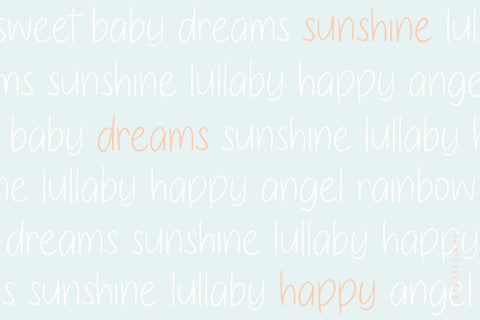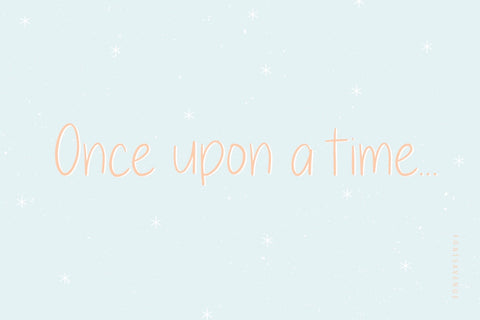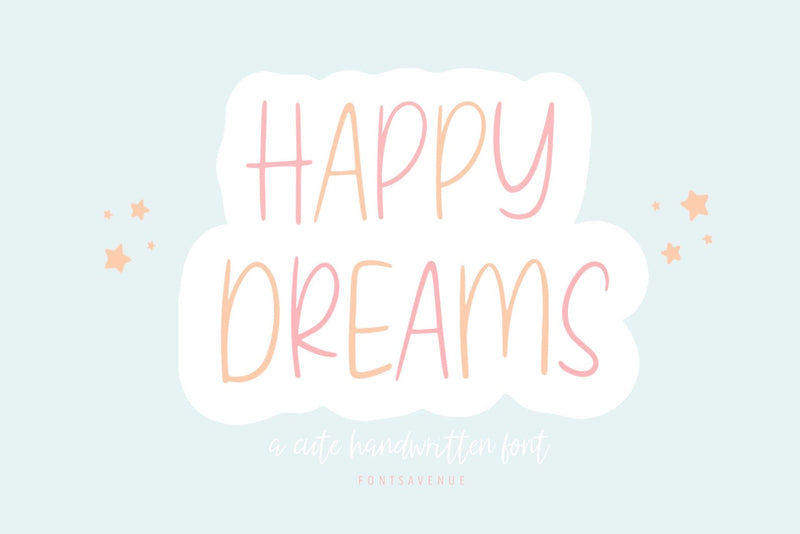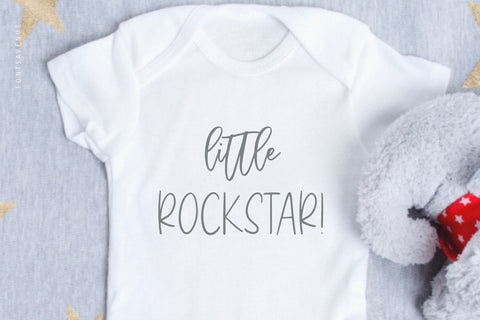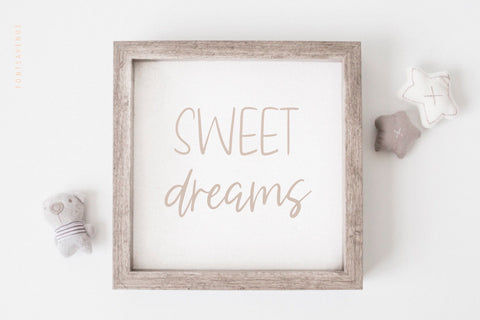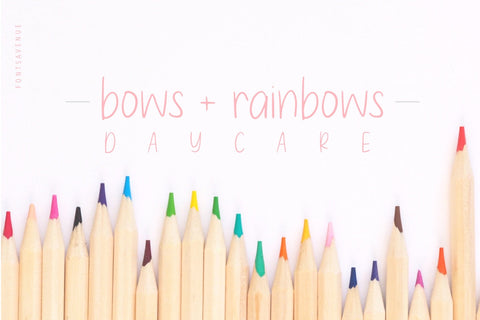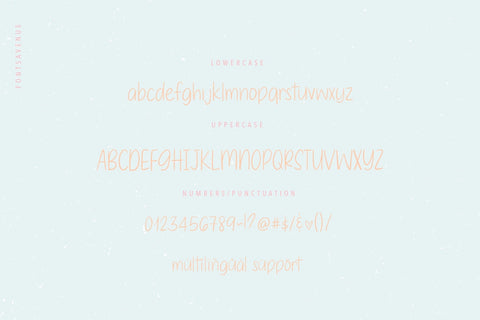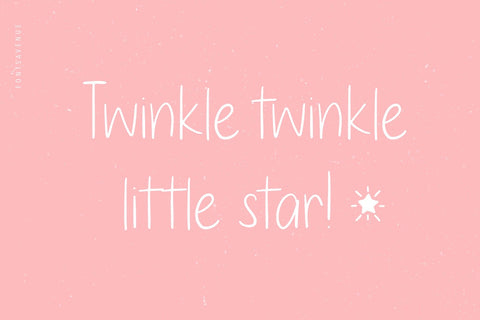
Happy Dreams | Cute Handwritten Font
Happy Dreams is a cute handwritten sans serif font, perfect for baby shower invitations, stickers, kids t-shirt design, procreate, and so much more!
- Uppercase and lowercase letters
- Accented characters